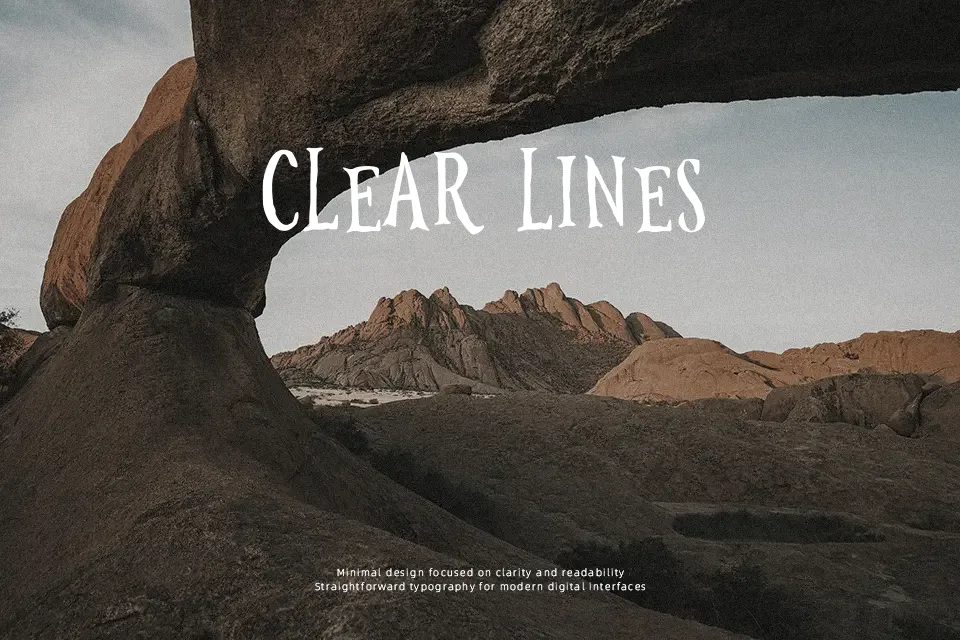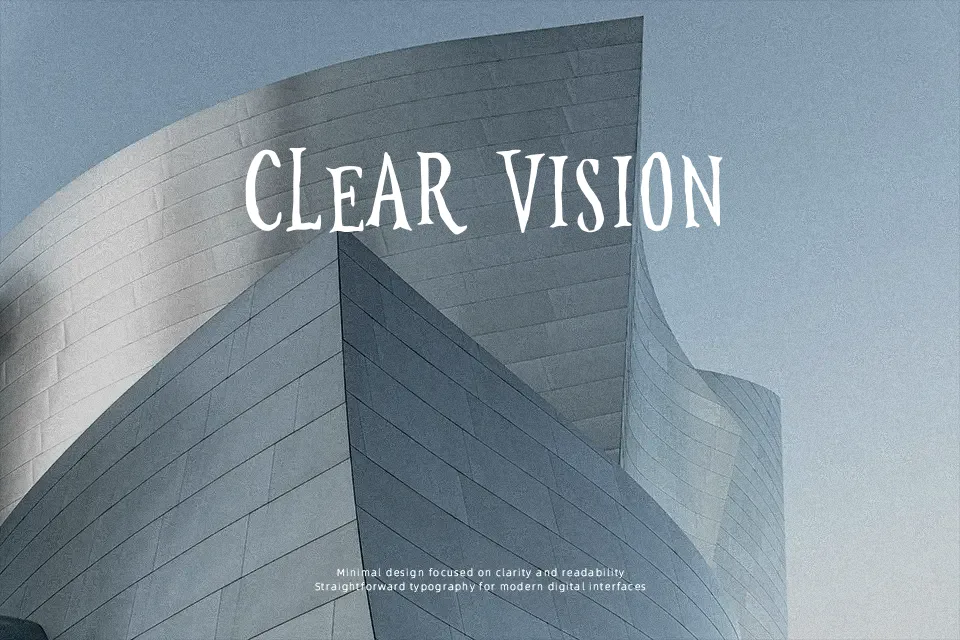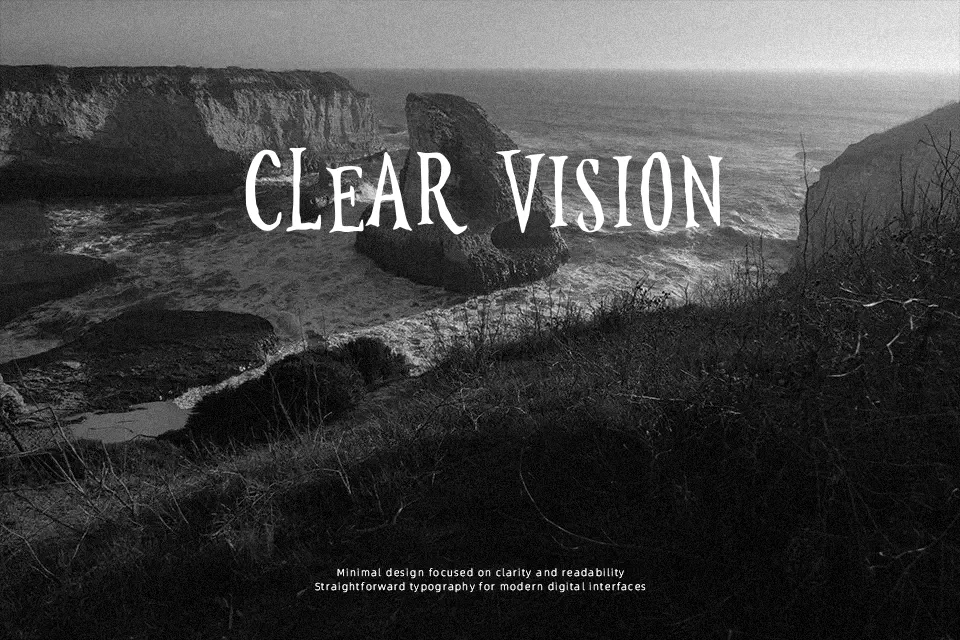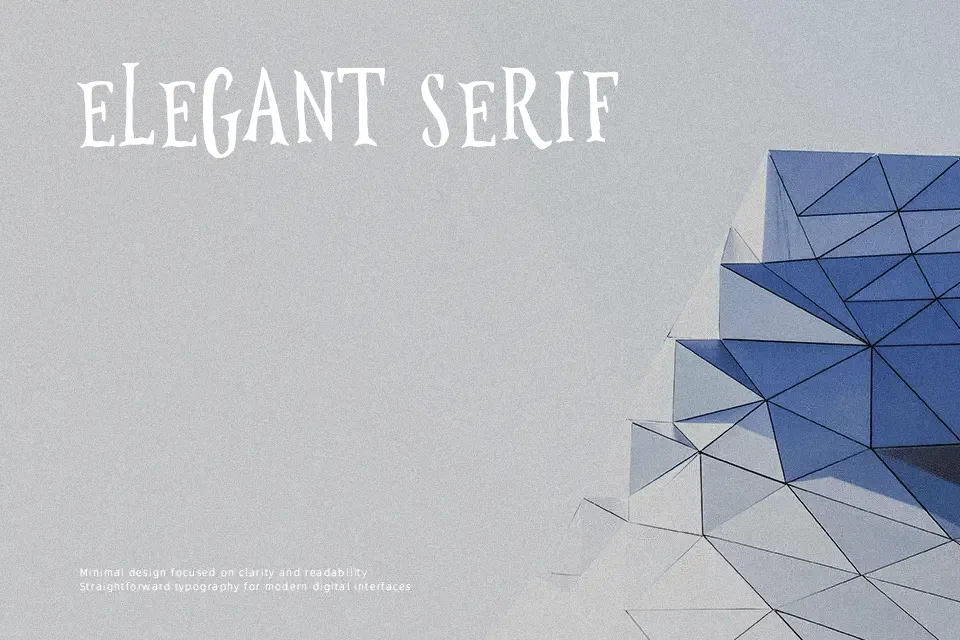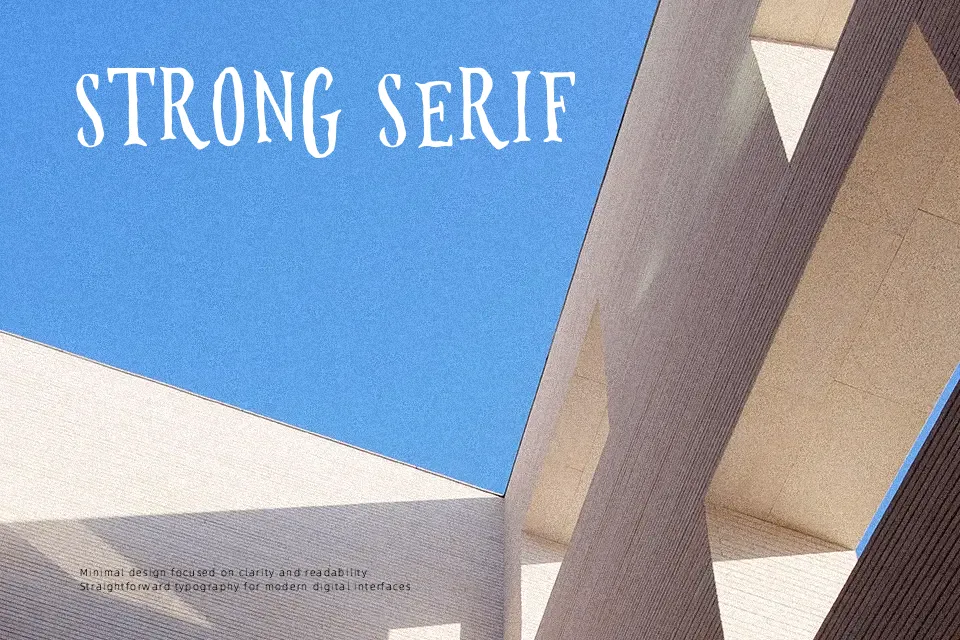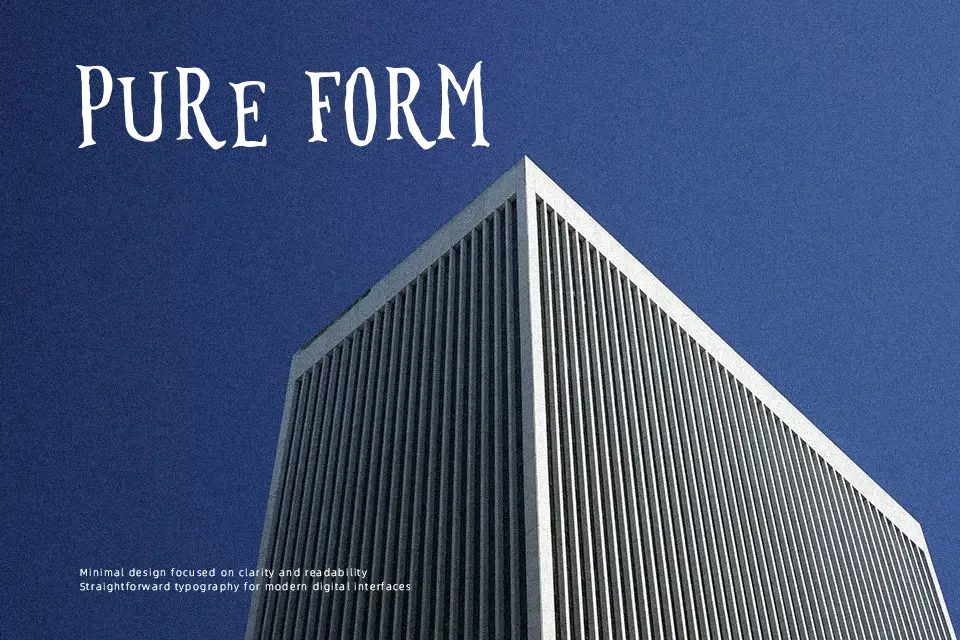
Surabanglus Font
Surabanglus Font delivers an idiosyncratic visual rhythm through condensed proportions, varied stroke thicknesses, and sharp, asymmetrical counterforms. The glyphs showcase exaggerated verticality with tight character spacing, giving the typeface an animated, beatnik-inspired energy. Such pronounced stylization works effectively for spooky event flyers, eccentric editorial headers, and stylized apparel graphics that require an unconventional personality. However, the uneven internal shapes and compact kerning diminish character distinction at small point sizes, making the letterforms unsuitable for continuous body text or dense data tables. In practical application, the design functions best when given ample tracking across prominent display banners.
Best For: vintage book covers, Halloween party flyers, quirky apparel graphics, food packaging labels
Not Ideal For: long body paragraphs, mobile interface body text, corporate annual reports, dense tabular data
Perfect for film, halloween, and headline, with a creative and condensed style.